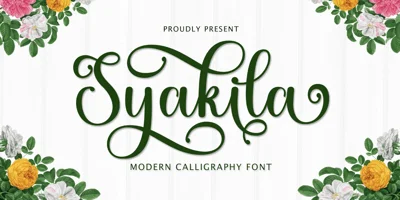
Syakila Script
Syakila Script Font
Syakila Script Font is ideal for romantic wedding invitations, elegant branding projects, handwritten logo designs, feminine beauty products, personal stationery creation, boutique signage, and graceful calligraphy applications.
What makes Syakila Script Font exciting is its flowing femininity and handwritten grace, featuring elegant script letterforms that capture the essence of personal touch while delivering romantic visual appeal and authentic calligraphy beauty.
The Syakila Script Font family includes Regular, Bold, and Ornamental versions, plus decorative swashes, flowing ligatures, and feminine alternates that enhance the font's graceful character and romantic possibilities.
Syakila Script Font embodies the timeless beauty of handwritten elegance and feminine grace through exquisite calligraphy design. This enchanting typeface captures the intimate charm of personal handwriting and the romantic spirit of beautiful lettering, creating a graceful visual language that speaks to audiences who appreciate feminine beauty, personal touch, and the heartfelt warmth of handcrafted communication. The font's flowing character and feminine appearance make it perfect for wedding planners, boutique businesses, and romantic brands that want to communicate intimacy, elegance, and the personal connection of beautiful handwritten expression.
Wedding professionals and feminine brands consistently choose Syakila Script Font for projects that require authentic romantic credibility and graceful visual appeal. The typeface's flowing construction and feminine personality make it exceptionally effective for bridal businesses, beauty brands, and personal service companies where romantic elegance and feminine charm are paramount. Each character has been crafted with graceful precision to ensure maximum beauty across all romantic applications and feminine environments.
The romantic advantages of Syakila Script Font extend beyond its feminine appeal to include practical functionality for diverse personal applications. The font maintains excellent readability in intimate settings while delivering the distinctive character that creates meaningful personal connections and resonates with audiences seeking authentic feminine beauty. Its comprehensive character set includes decorative symbols and romantic elements that make it particularly suitable for personal documentation and intimate communication.
Wedding venues, beauty salons, and feminine lifestyle brands frequently incorporate Syakila Script Font into their brand identity systems because of its ability to instantly convey romantic authenticity and feminine sophistication. The typeface's graceful aesthetic helps establish emotional connections while appealing to customers who value personal beauty, romantic elegance, and the heartfelt experiences that come from authentic feminine expression and beautiful handwritten craftsmanship.